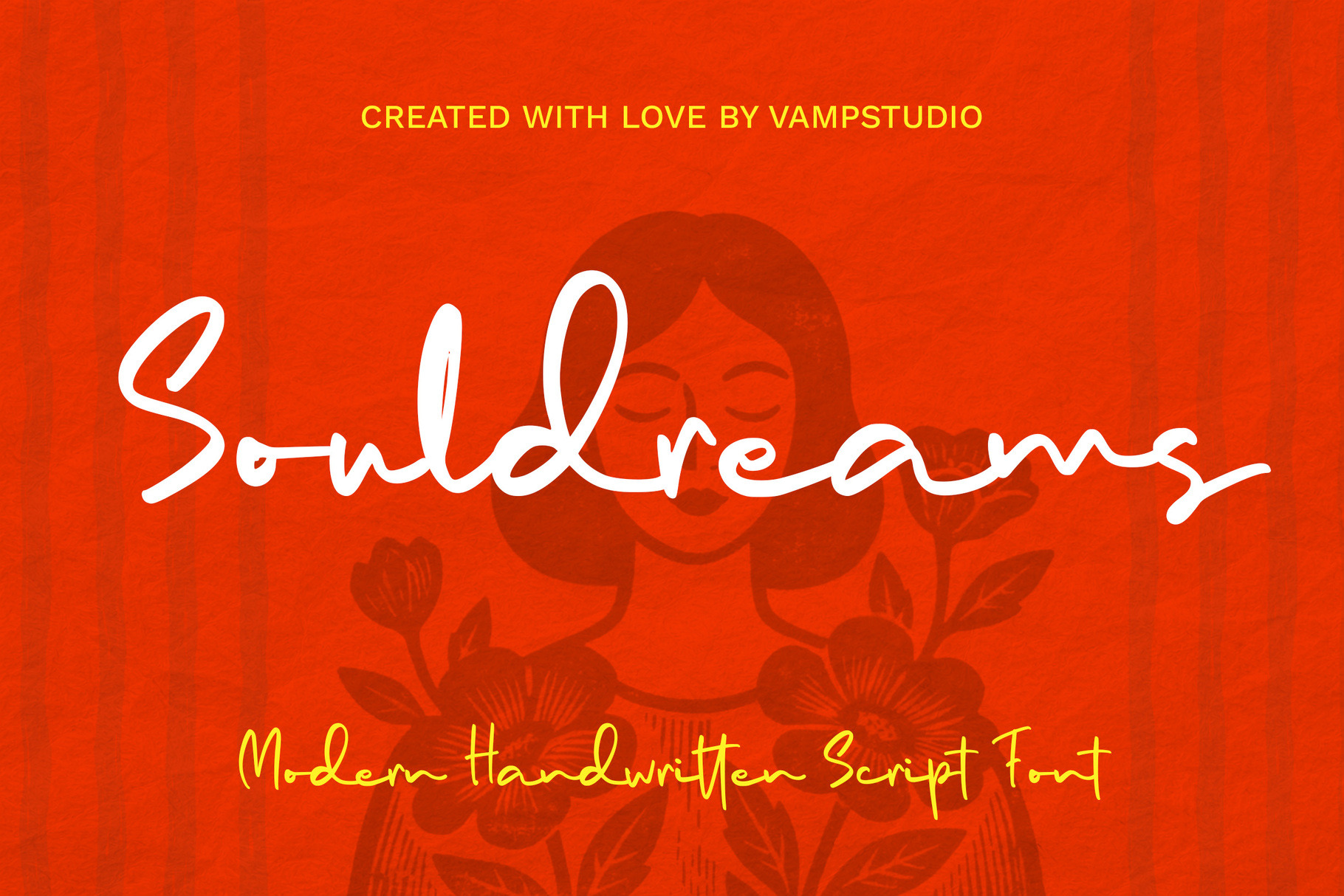
Souldreams - Handwritten Script Font
Souldreams is a vibrant and expressive modern handwritten script font. It is designed to capture the raw energy of natural penmanship, this typeface brings a personal, “human” touch to digital designs. Its fluid strokes and intentional irregularities make it a standout choice for high-impact branding, social media quotes, creative posters, and lifestyle packaging that demands a bright, energetic mood.
Ton of glyphs
PUA Encoded Characters
Fonts include multilingual support.